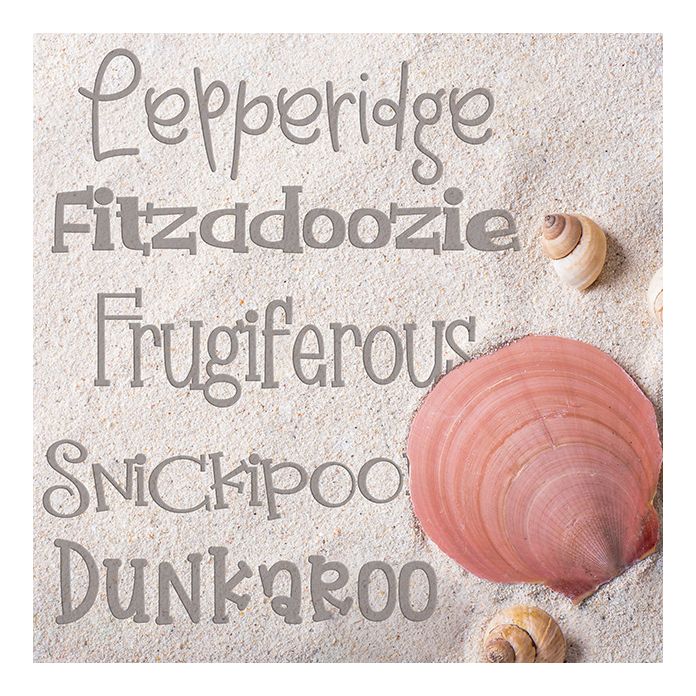
Tickle Time Font Bundle
This hand-crafted font bundle features five hand-crafted font with an emphasis on a fun, silly, and whimsical.
Hand-crafted fonts can be either formal or informal, and they can be used for a variety of purposes. Some of the characteristics of handwritten fonts include: The letters are not perfectly uniform in size or shape. There may be slight variations in the spacing between letters and words. The font may have a "wiggly" or "squiggly" appearance. The font may be difficult to read at small sizes. Handwritten fonts can be a great way to add a casual touch to your designs. They can also be used to create a sense of nostalgia or whimsy. However, it is important to choose a handwritten font that is appropriate for the project you are working on. A formal handwritten font may not be appropriate for a casual invitation, while an informal handwritten font may not be appropriate for a corporate document.